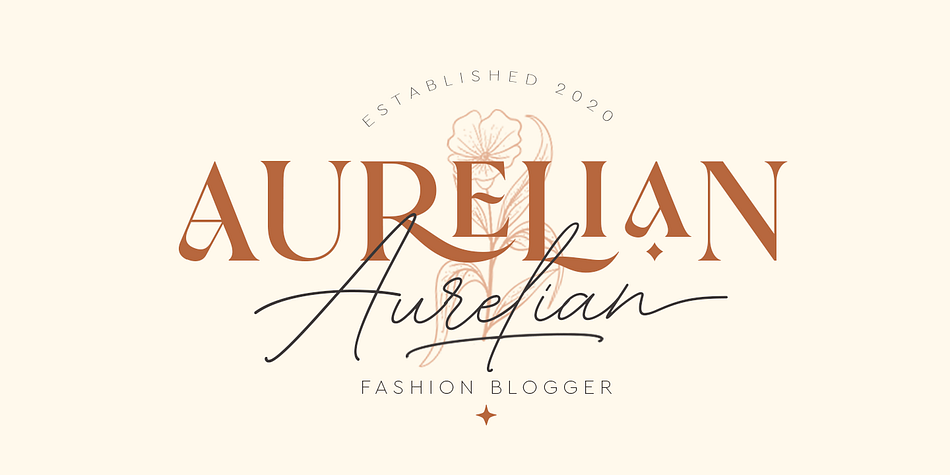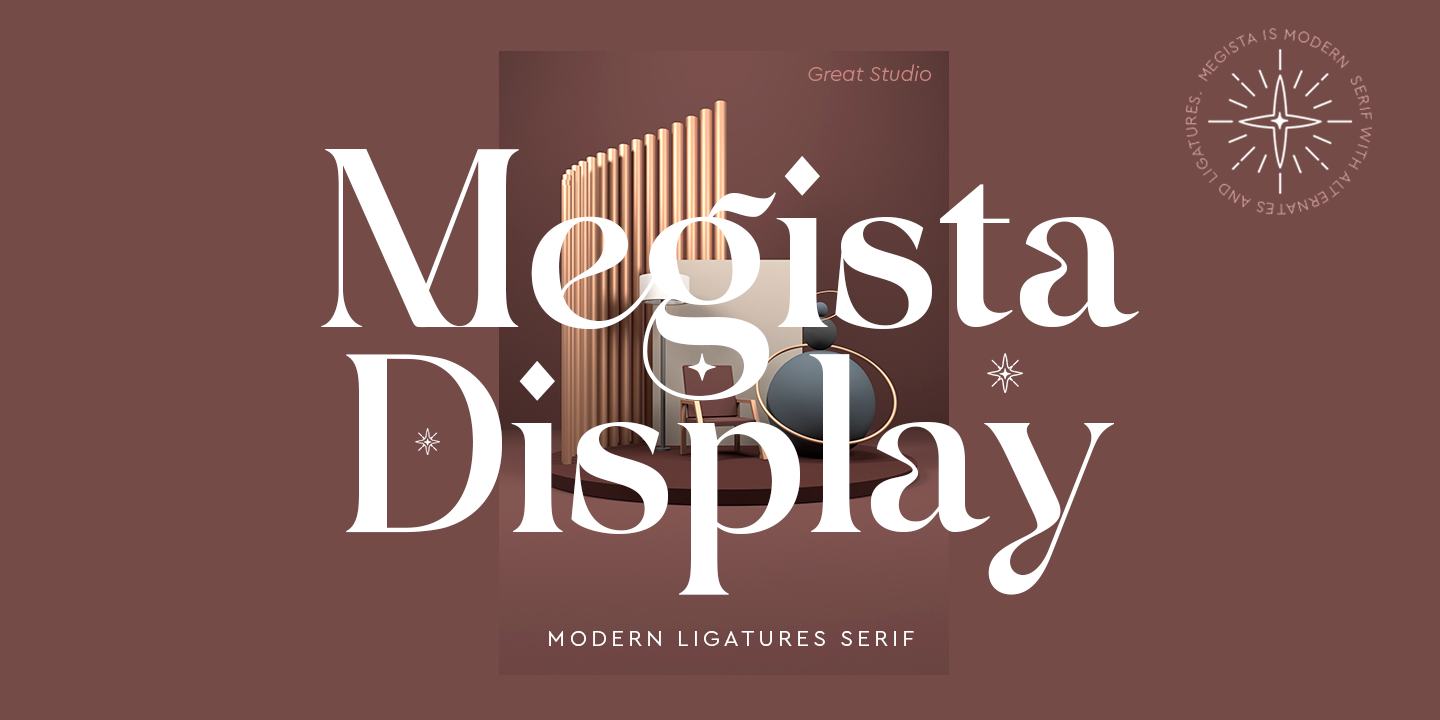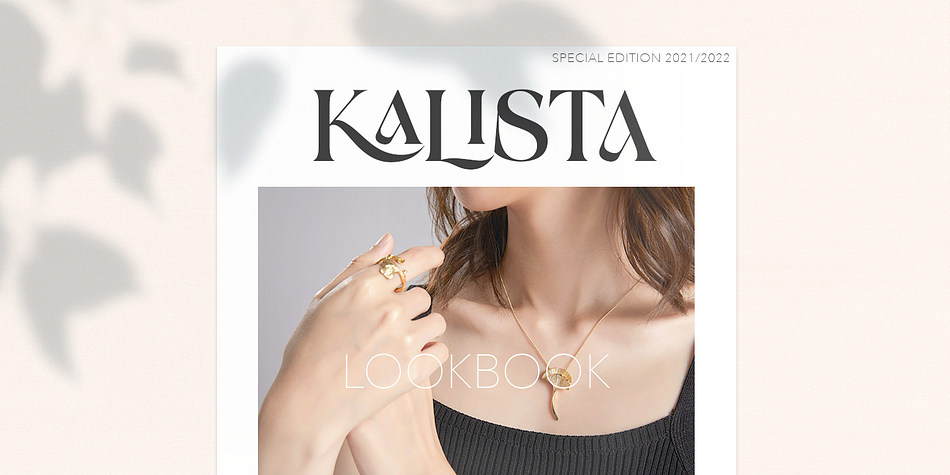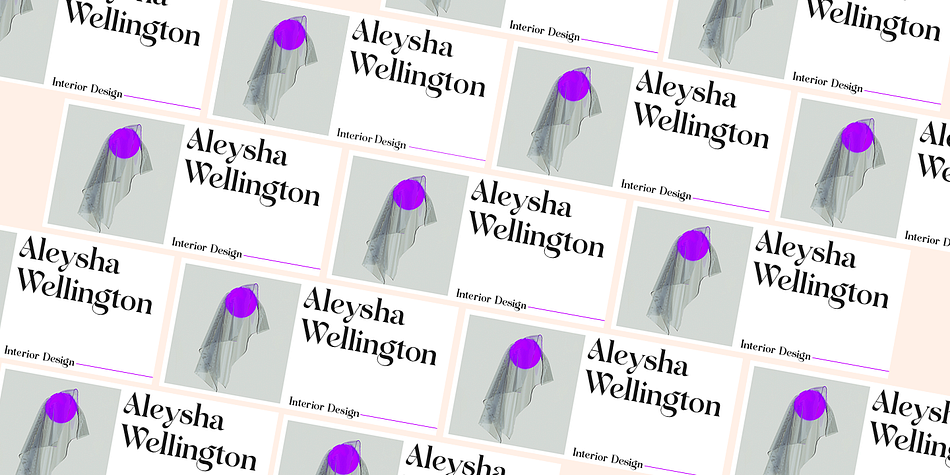
Megista Display
Designed by Mulkan Nazir, Megista Display is a display serif font family published by Great Studio.
Megista display is a modern serif font with a unique ligature style, a high contrast and light font perfect for feminine logo signs, fashion heads & editorial designs, branding projects, Clothing Branding, packaging, magazine headings, advertising, T-shirts, postcards and much more.
Megista display is also included full set of:
Uppercase and lowercase letters
Automatic ligatures
Multilingual characters
Numerals
Punctuation